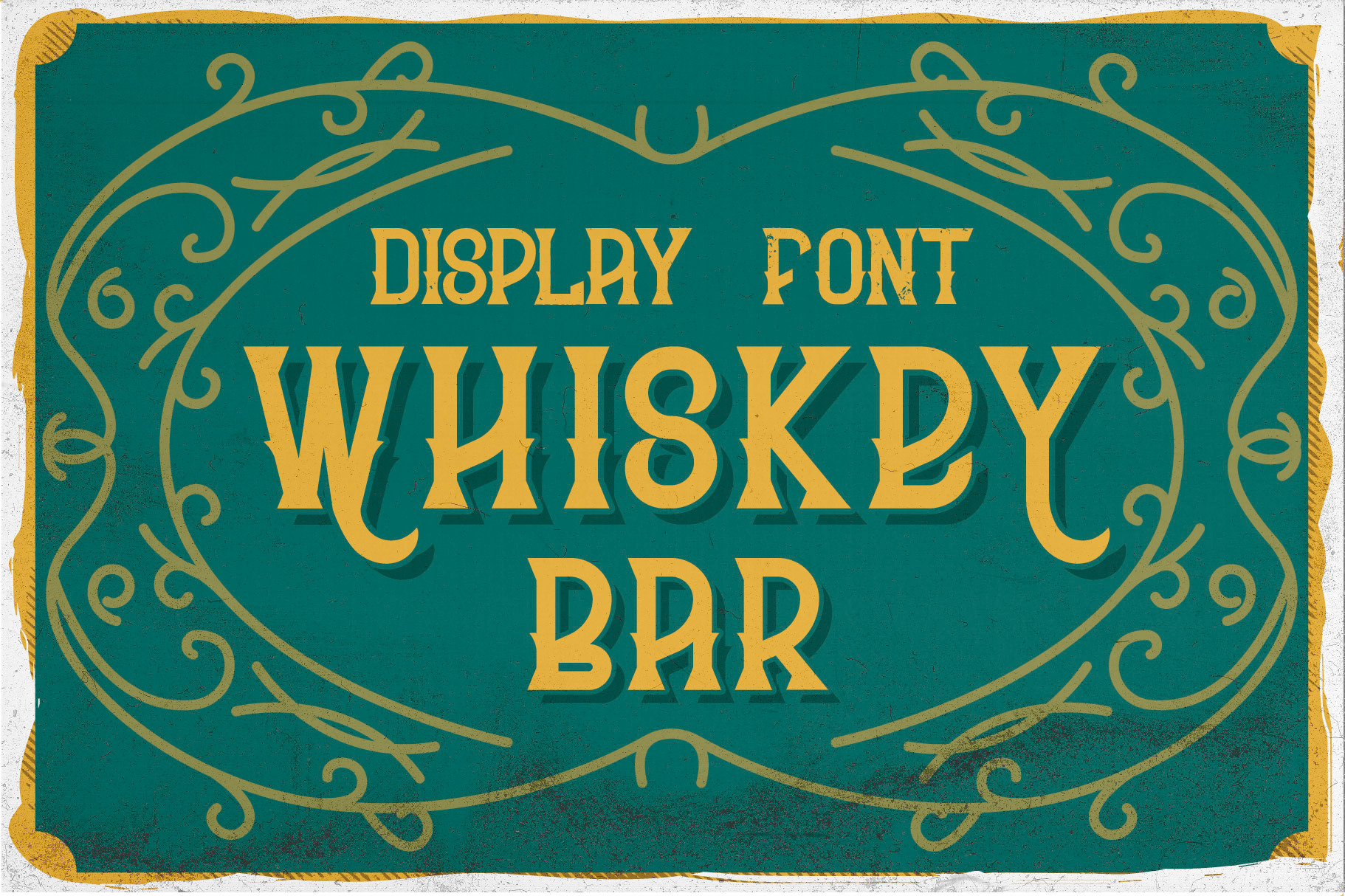
Whiskey bar font + 6 illustrations
Introducing my newest font called "Whiskey Bar". It has wide language support of multilingual characters and ligatures (check out all available characters in previews). Bonus 6 t-shirt designs..This font will look good on any vintage-styled designs like a poster, T-shirt, label, logo, etc.
- A lot of additional symbols, alternative characters, multilingual support, and ligatures.